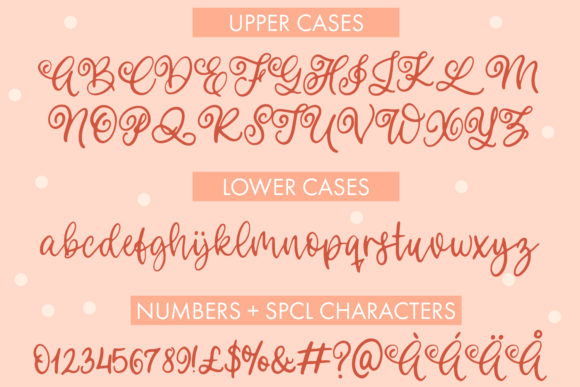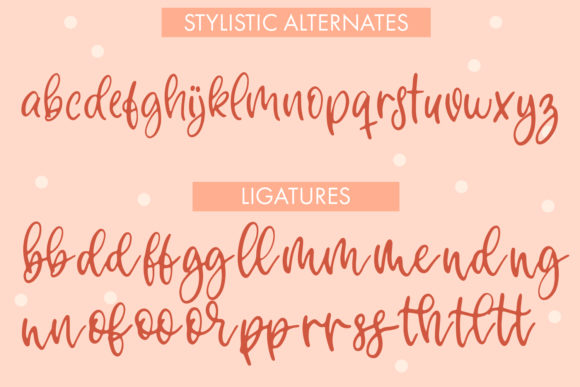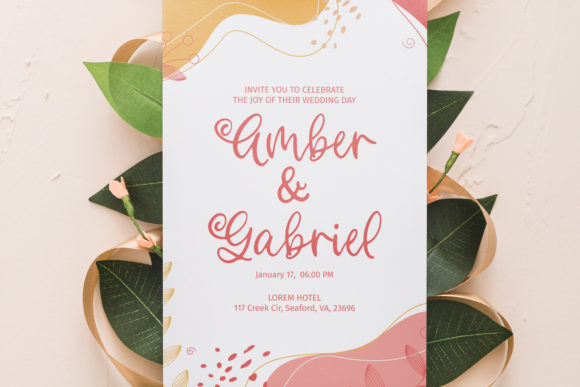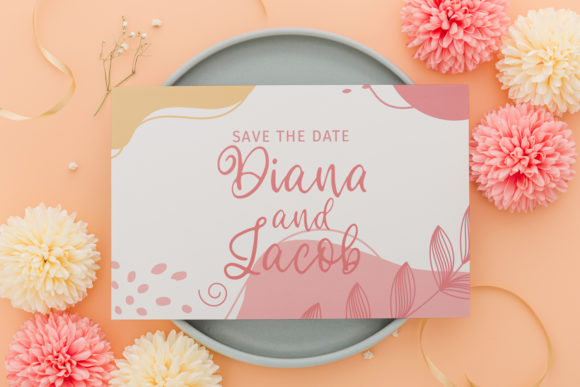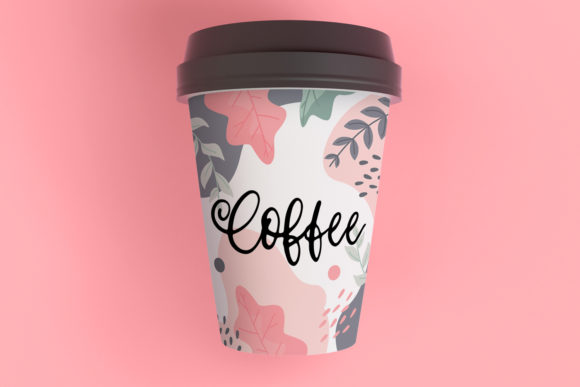
Introduction to Emma Claire Font
Emma Claire is an incredibly elegant, flowing and curly handwritten font.
This font is PUA encoded which means you can access all of the glyphs and swashes with ease Dainty and joyful, this font will be ideal for writing wedding invitations, cards or any other design that may need a romantic, personalized touch.
Key Features of Emma Claire Font